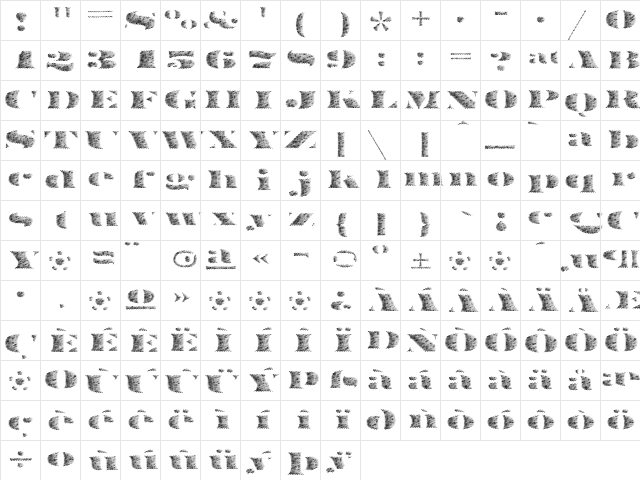
FederalEighteen Medium
Design Context for FederalEighteen Typeface
FederalEighteen is a composed and adaptable typeface that performs quietly and consistently across a wide range of design contexts.